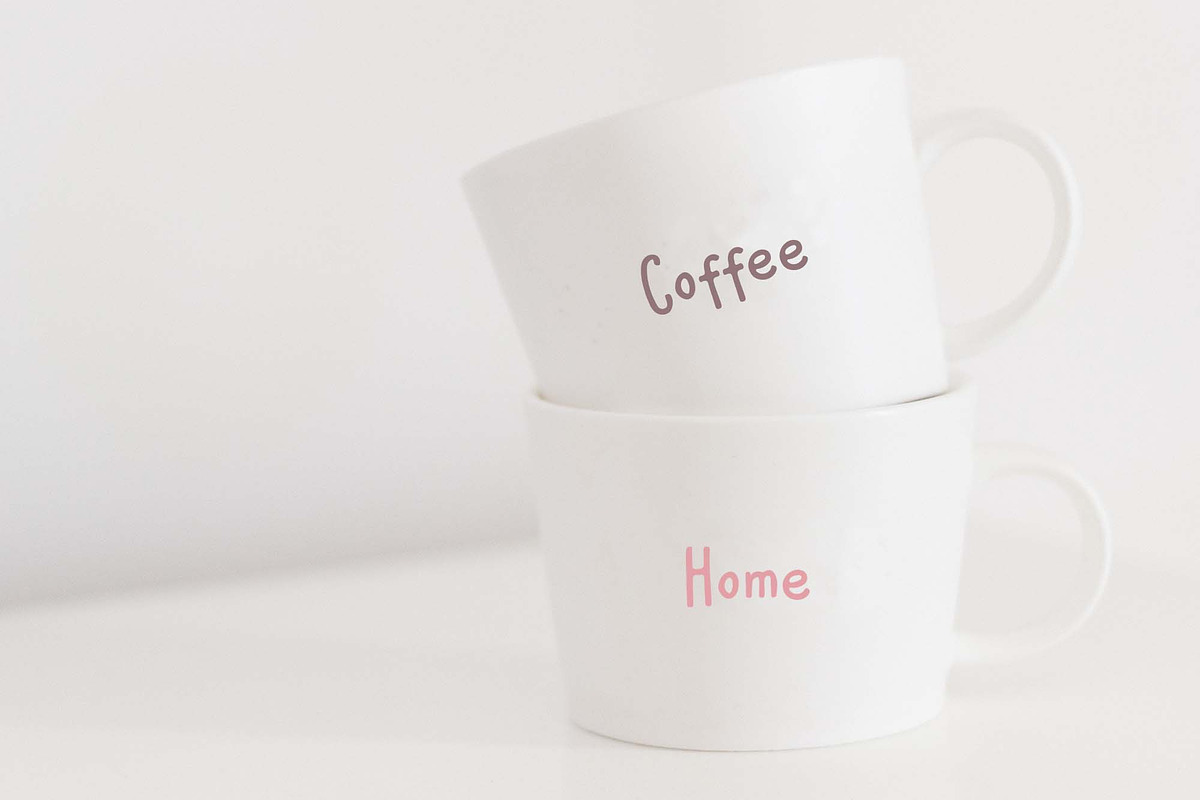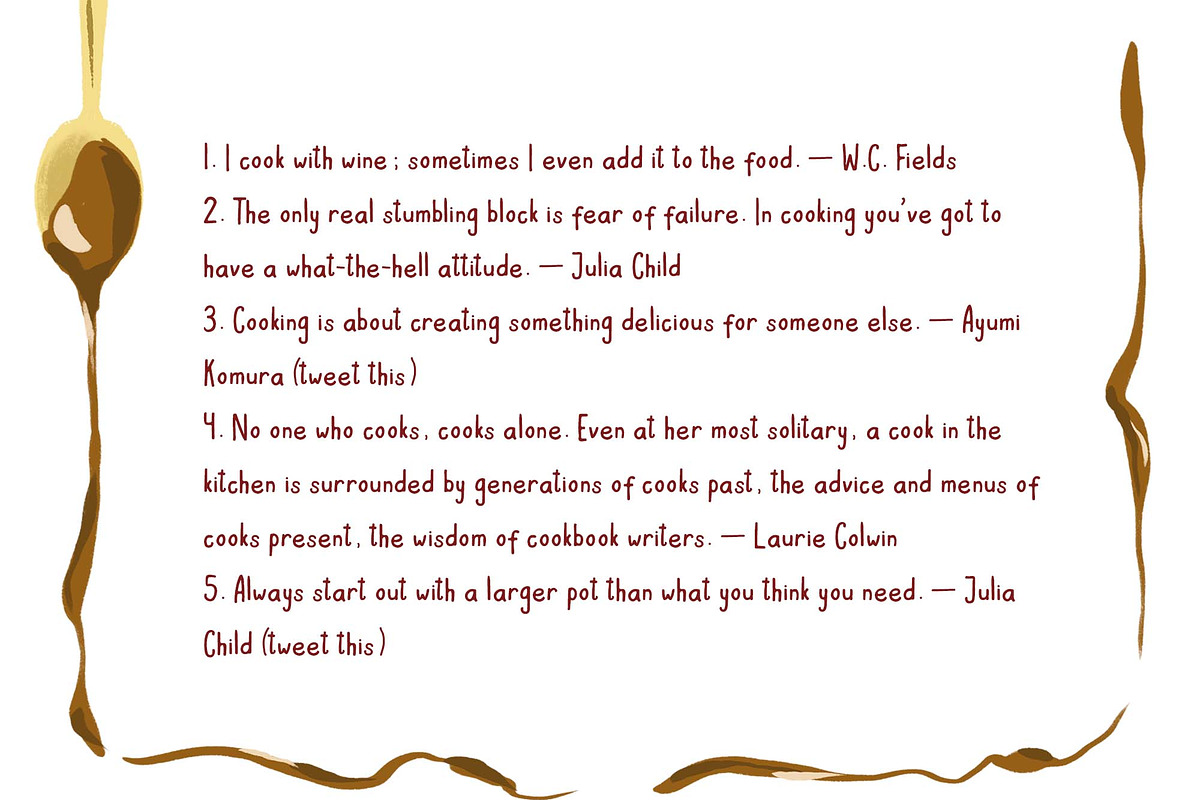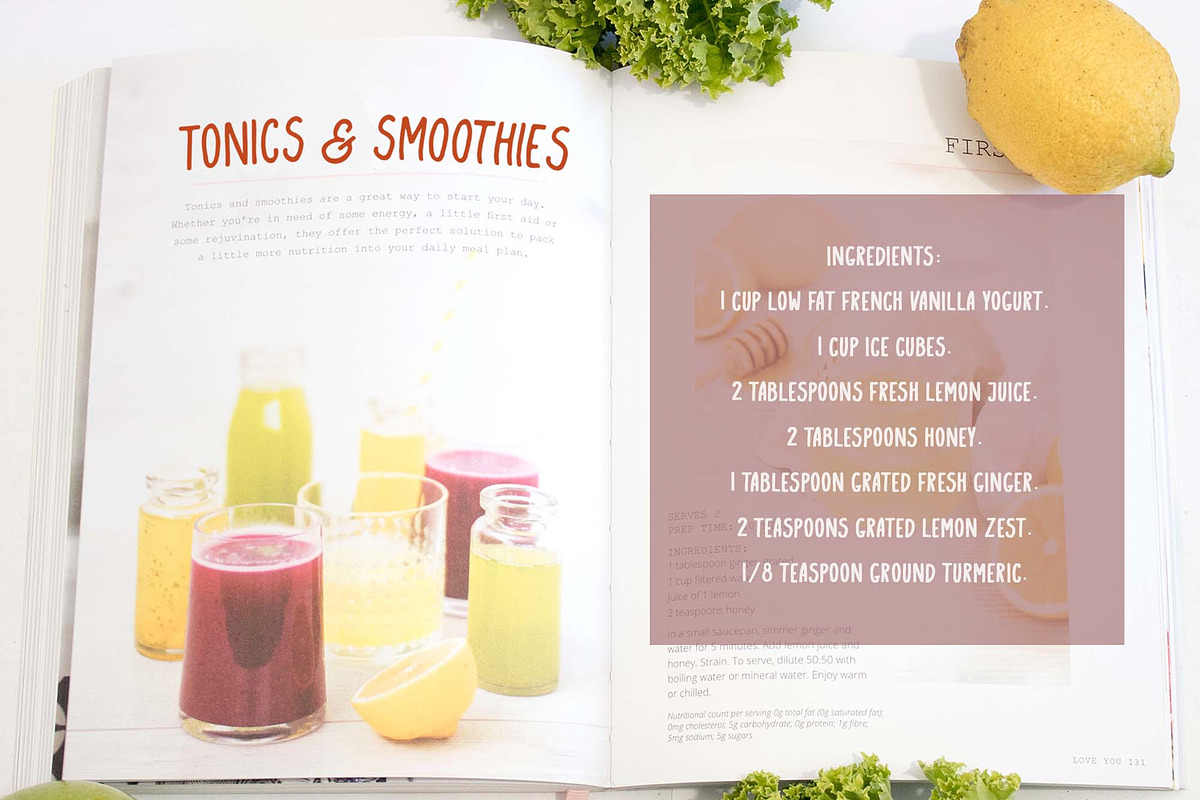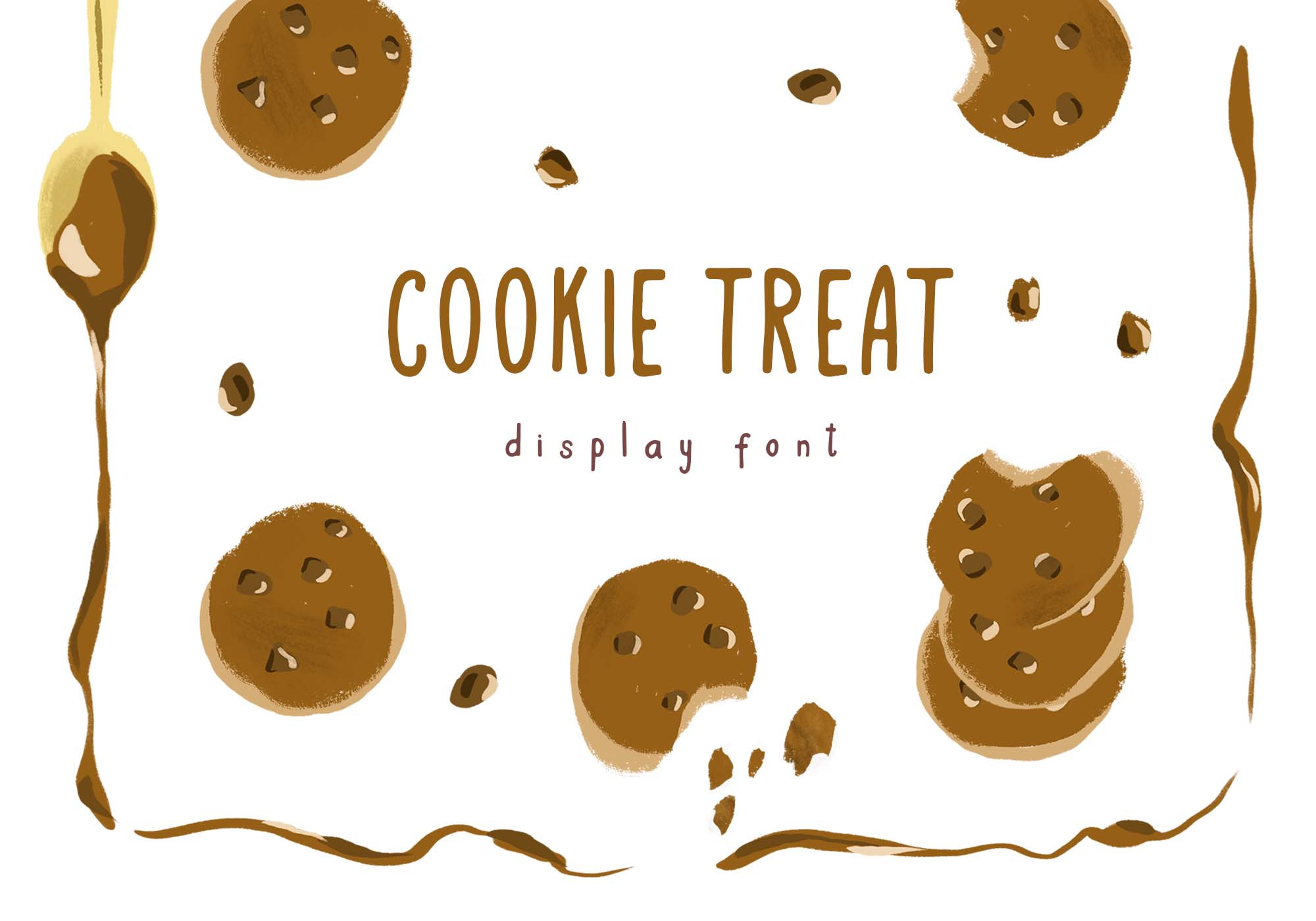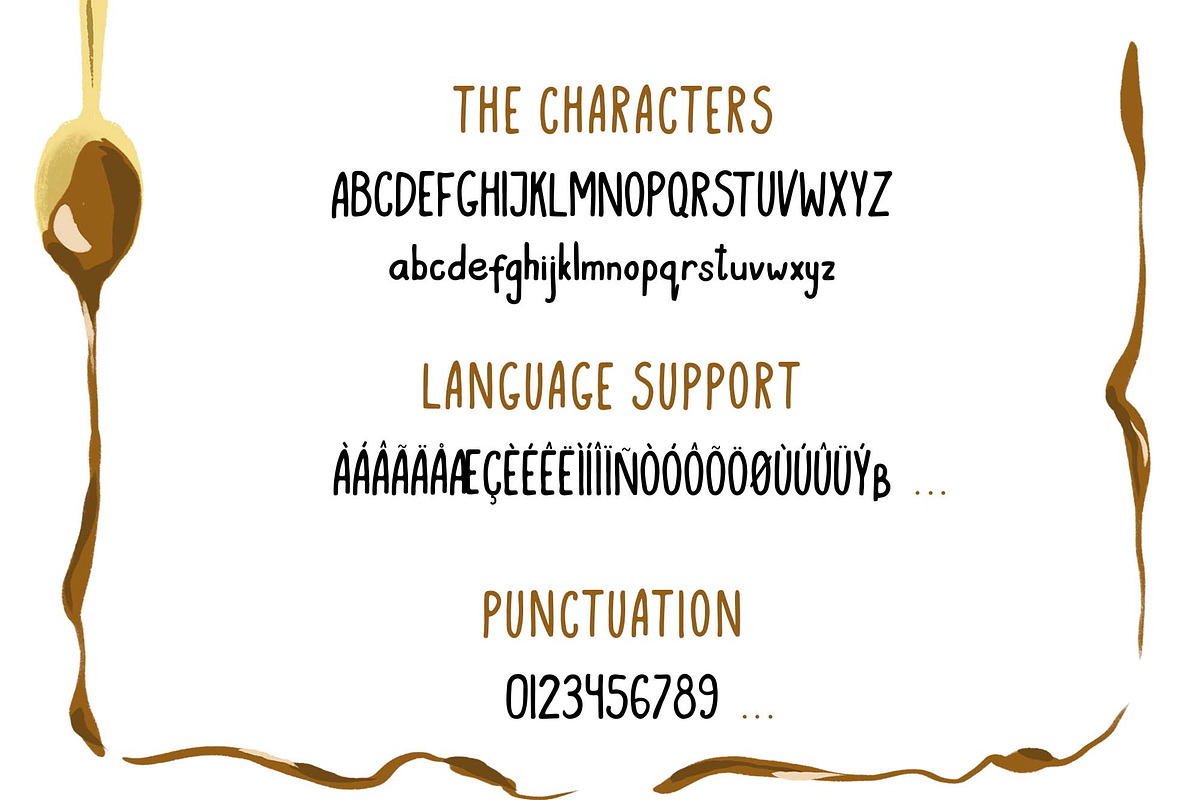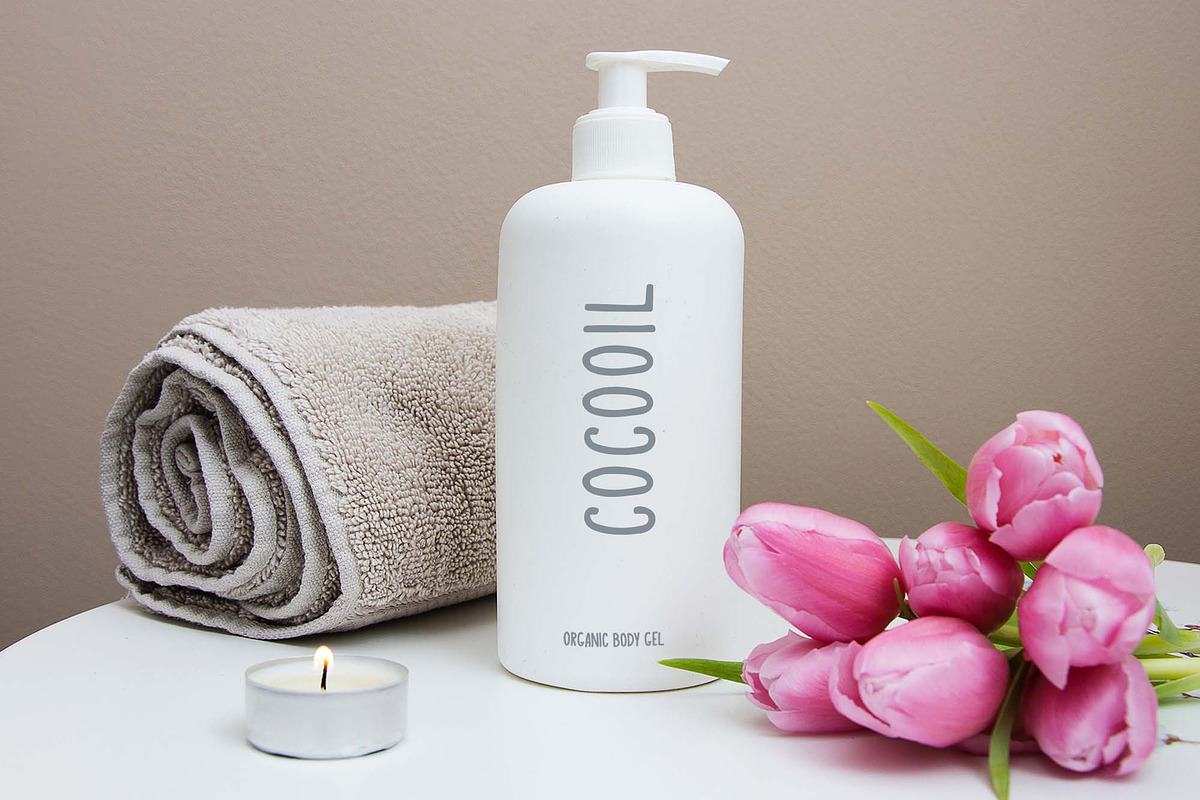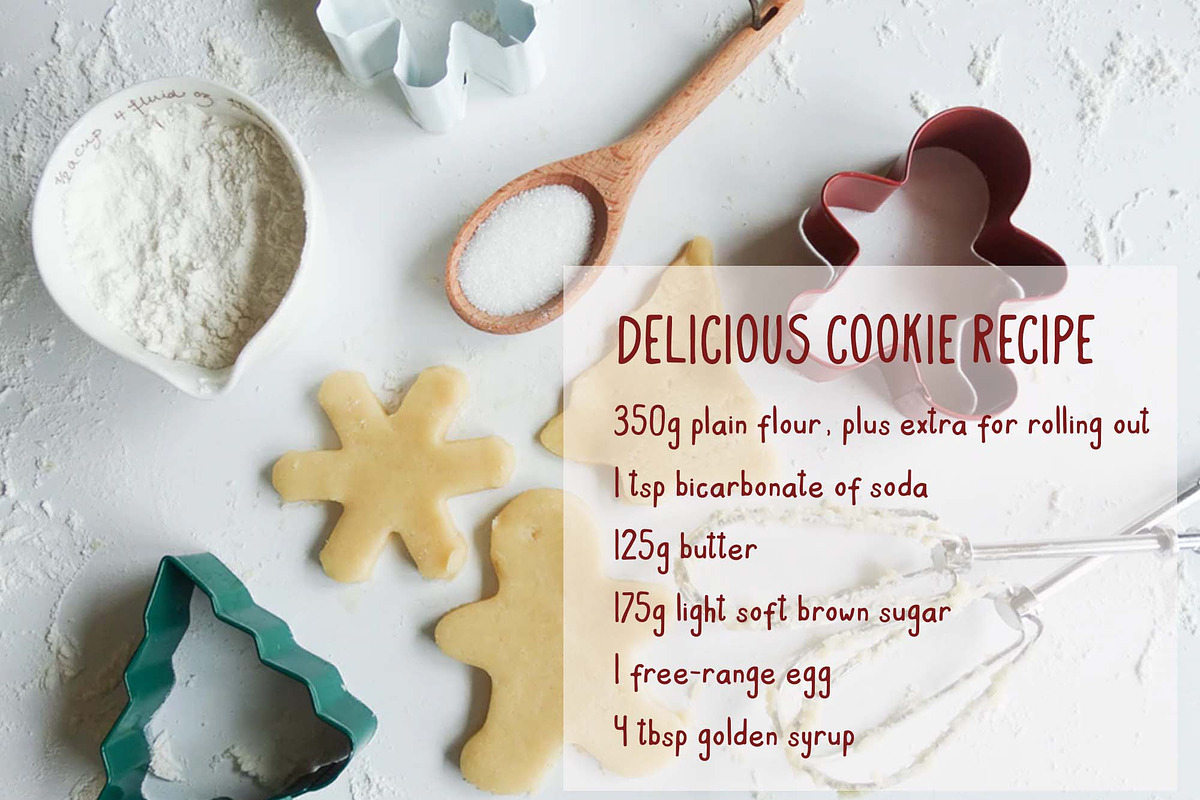
Cookie Treat font
Cookie Treat casual hand-lettered font.
It is suitable for recipe and cook books, promotional, packaging designs, labels, greeting cards, cosmetic brands, posters, title, typography based branding, quotes, children's book, brochure, advertising, creative headers and so much more.
Fun and casual, with uneven letters, this font brings a dynamic vibe to your projects.